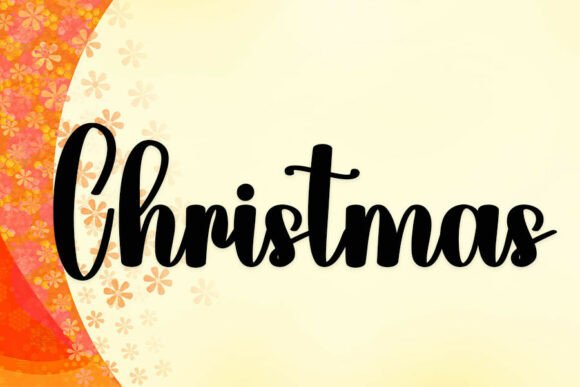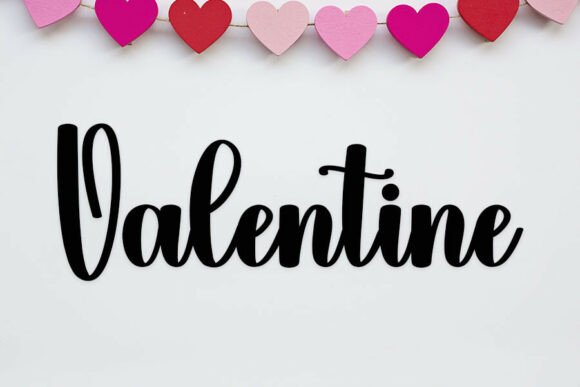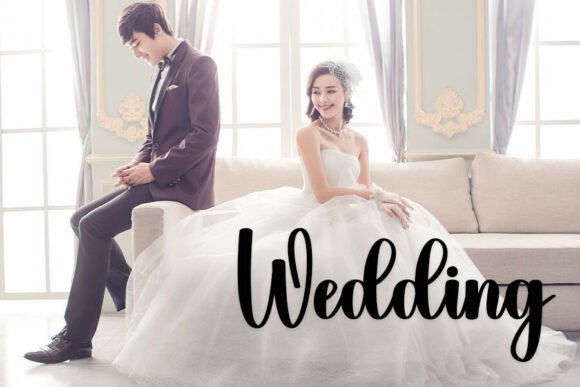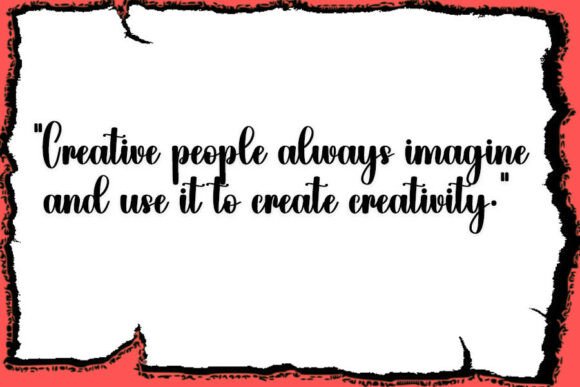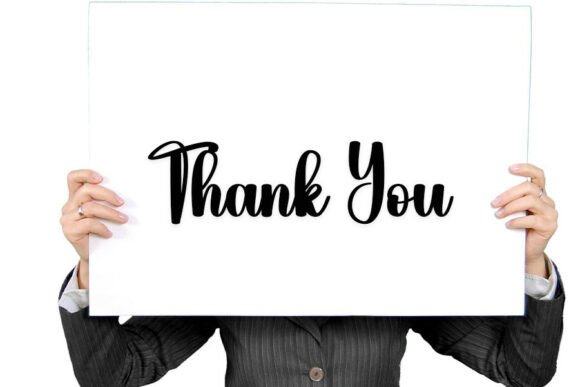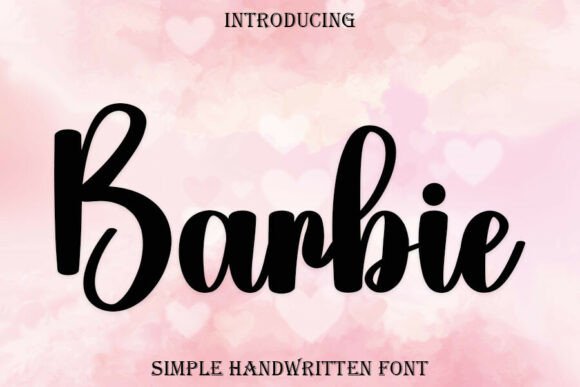
Introducing Barbie Font: The Sweet and Elegant Handwritten Font
Are you looking for a font that can add a touch of elegance and whimsy to your designs? Look no further than Barbie Font, a beautiful and versatile handwritten font that’s perfect for a wide range of creative projects. In this article, we’ll take a closer look at the features and benefits of Barbie Font, and explore how you can use it to elevate your designs.
What is Barbie Font?
Barbie Font is a sweet and cursive handwritten font that’s designed to bring a touch of joy and romance to your designs. With its gentle and flowing lines, this font is perfect for creating elegant and sophisticated designs that still have a playful and casual feel. Whether you’re working on a branding project, a wedding invitation, or a fashion lookbook, Barbie Font is the perfect choice.
Key Features of Barbie Font
So what makes Barbie Font so special? Here are just a few of its key features:
- Sweet and cursive design: Barbie Font has a beautiful, flowing design that’s perfect for creating elegant and sophisticated text.
- Handwritten feel: This font has a lovely handwritten feel that’s perfect for adding a personal touch to your designs.
- Versatile: Barbie Font can be used for a wide range of design projects, from branding and logos to wedding invitations and fashion lookbooks.
- Elegant and casual: This font has a unique ability to be both elegant and casual at the same time, making it perfect for designers who want to create sophisticated designs that still have a playful feel.
Use Cases for Barbie Font
So what can you use Barbie Font for? The possibilities are endless! Here are just a few ideas to get you started:
- Branding and logos: Use Barbie Font to create a beautiful and memorable logo for your brand.
- Wedding invitations and things: This font is perfect for creating elegant and sophisticated wedding invitations, save-the-dates, and other wedding stationery.
- Greeting cards: Use Barbie Font to create beautiful and heartfelt greeting cards for special occasions.
- Fashion and lookbooks: This font is perfect for creating stylish and sophisticated fashion lookbooks and marketing materials.
- Marketing and promotion: Use Barbie Font to add a touch of elegance and whimsy to your marketing materials, from brochures to social media graphics.
Why Choose Barbie Font?
So why should you choose Barbie Font for your next design project? Here are just a few reasons:
- Unique and eye-catching: This font is sure to grab attention and make your designs stand out.
- Elegant and sophisticated: Barbie Font has a timeless elegance that’s perfect for creating sophisticated designs.
- Easy to read: This font is clear and easy to read, making it perfect for body text and headlines.
- Versatile: Barbie Font can be used for a wide range of design projects, making it a great addition to any designer’s toolkit.
In conclusion, Barbie Font is a beautiful and versatile handwritten font that’s perfect for designers and crafters who want to add a touch of elegance and whimsy to their designs. With its sweet and cursive design, handwritten feel, and versatile use cases, this font is sure to become a favorite in your design toolkit. So why wait? Download Barbie Font today and start creating stunning designs that will leave a lasting impression!
Tips and Tricks for Using Barbie Font
Here are a few tips and tricks for getting the most out of Barbie Font:
- Experiment with font sizes: Barbie Font looks great in a variety of font sizes, from large headlines to smaller body text.
- Pair with other fonts: Try pairing Barbie Font with other fonts to create a unique and eye-catching design.
- Use for headlines and body text: This font is perfect for both headlines and body text, making it a great choice for a wide range of design projects.